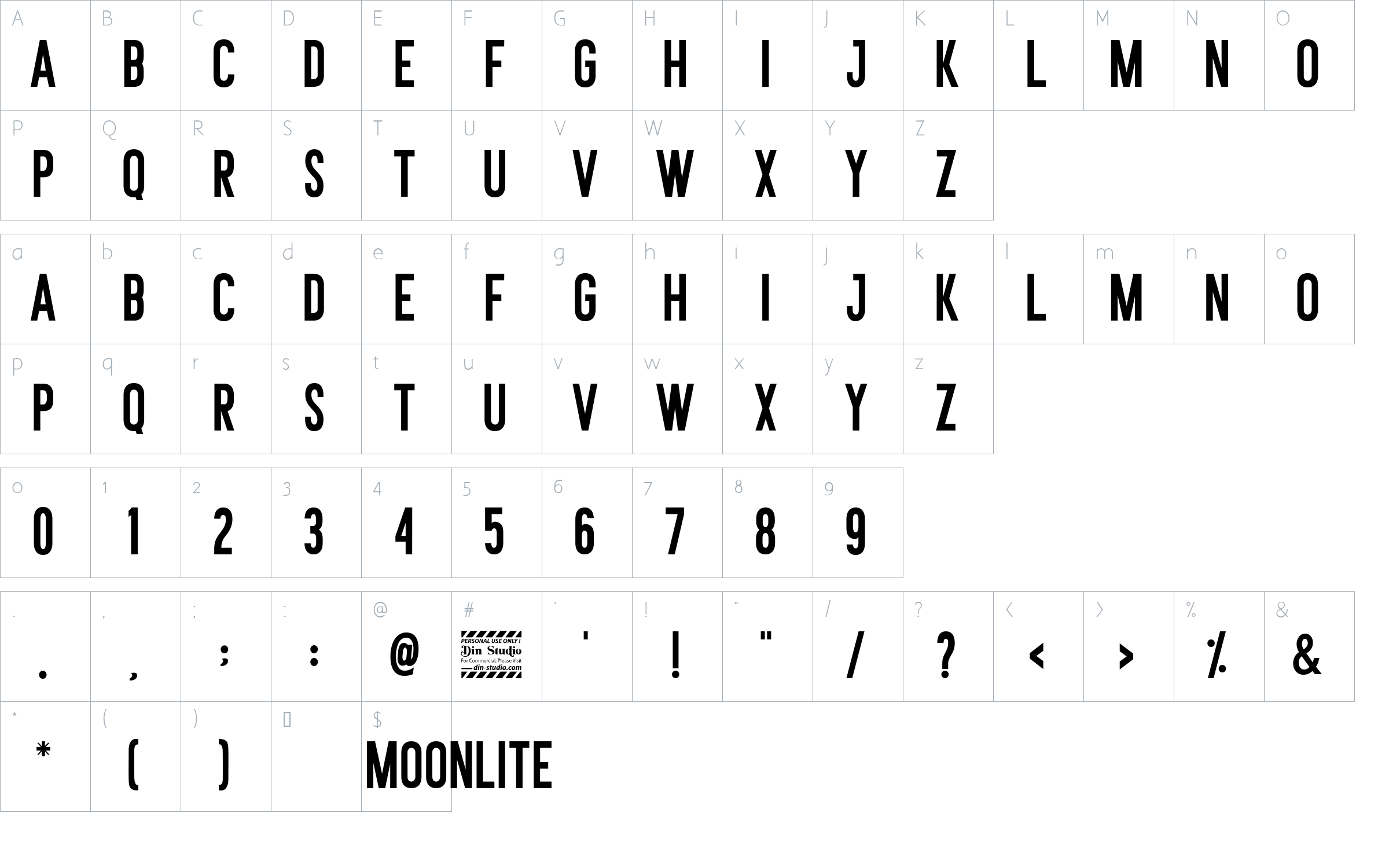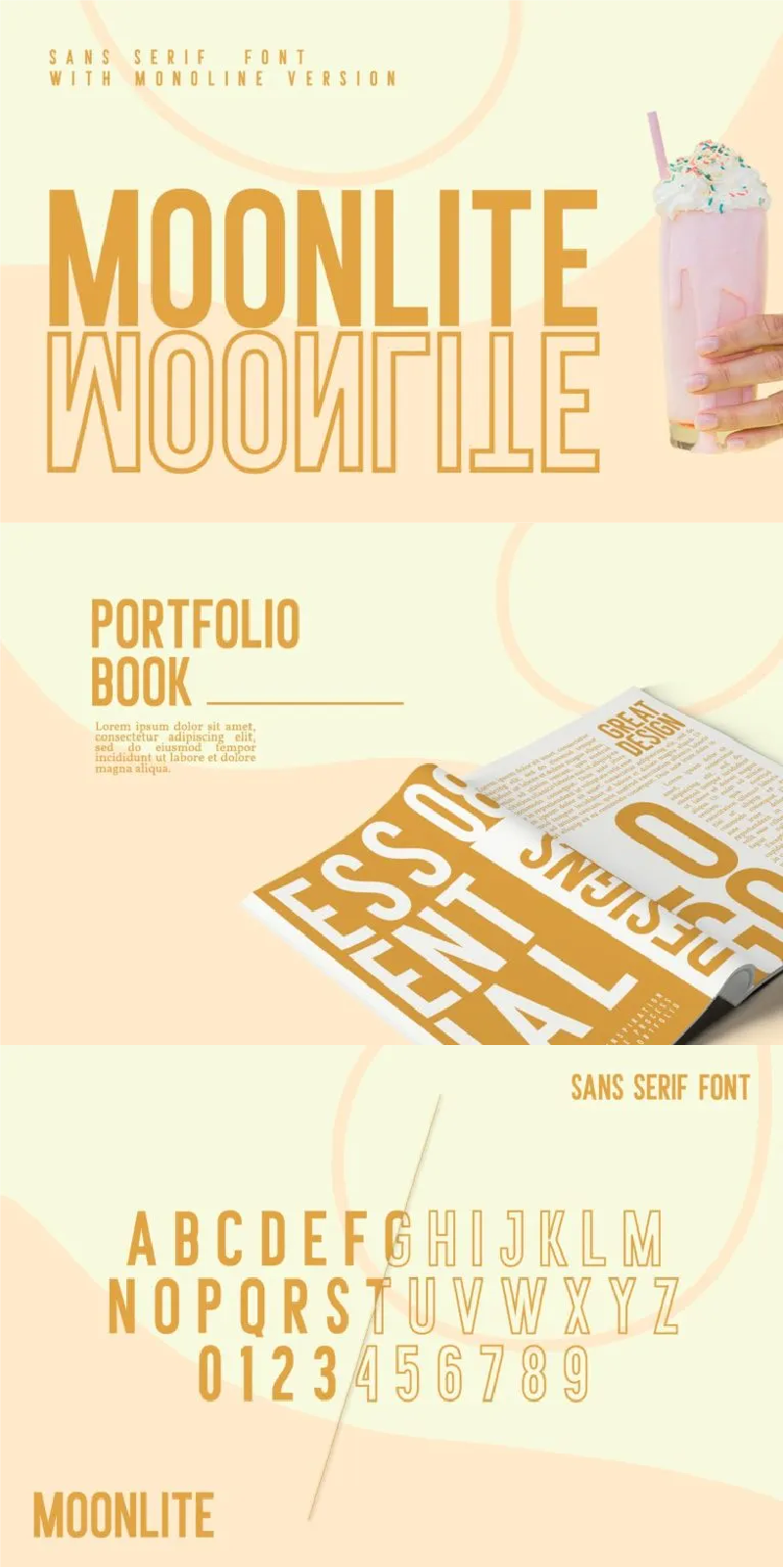
Moonlite Font
About Moonlite
Moonlite is a modern display sans serif font for any professional project brandings, such as social media campaigns, ads, cards, merchandise, and so on. Every letter has a unique and beautiful touch. It is also available with an outline version.